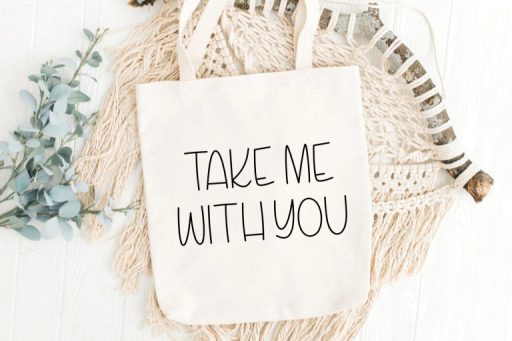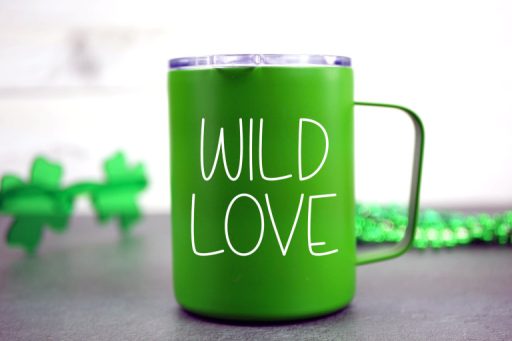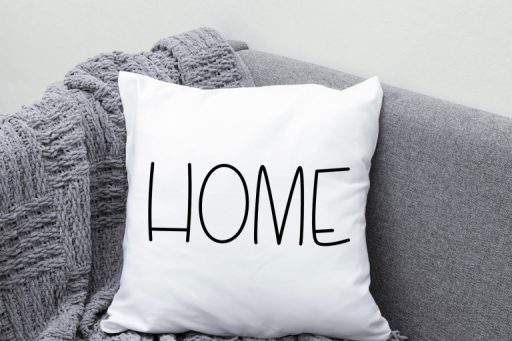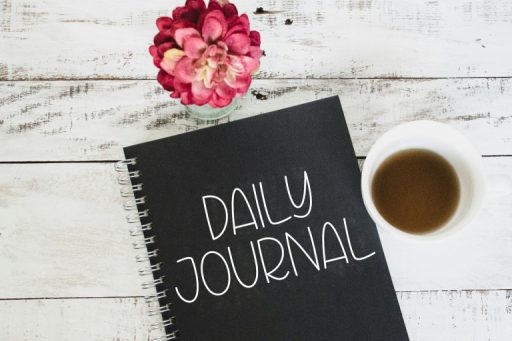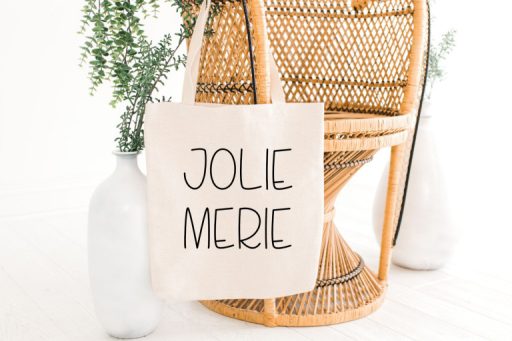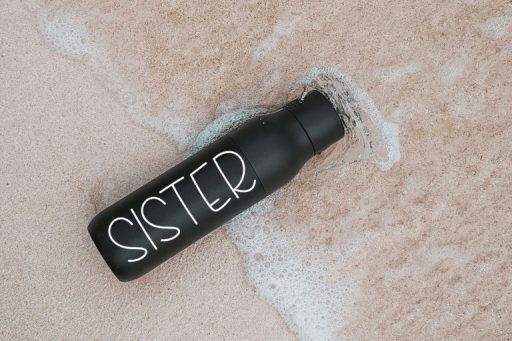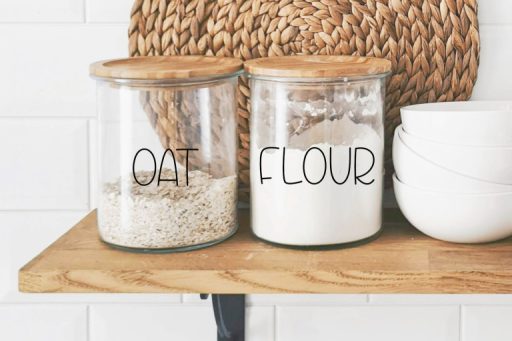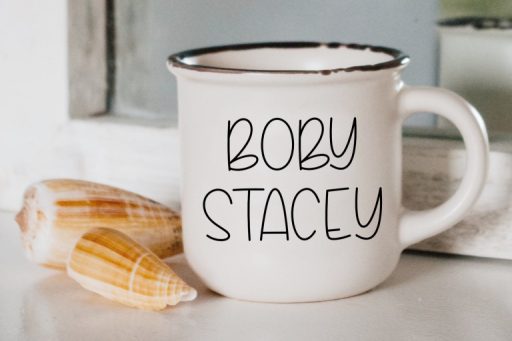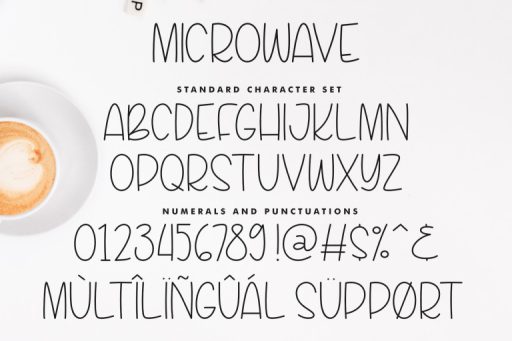
Microwave Font – Farmhouse Font from Jimtype Studio
Introducing the Microwave Font – a tall and slender typeface radiating cuteness in every letter. This font is your go-to choice for farmhouse-inspired designs, Cricut projects, SVG files, mugs, shirts, and beyond!
Elevate your Cricut projects with Microwave Font. Its tall and thin design ensures clean and precise cuts, making it a perfect companion for your crafting adventures. Whether you’re crafting for the farmhouse aesthetic or adding a playful twist to your merchandise, this font is your delightful companion.